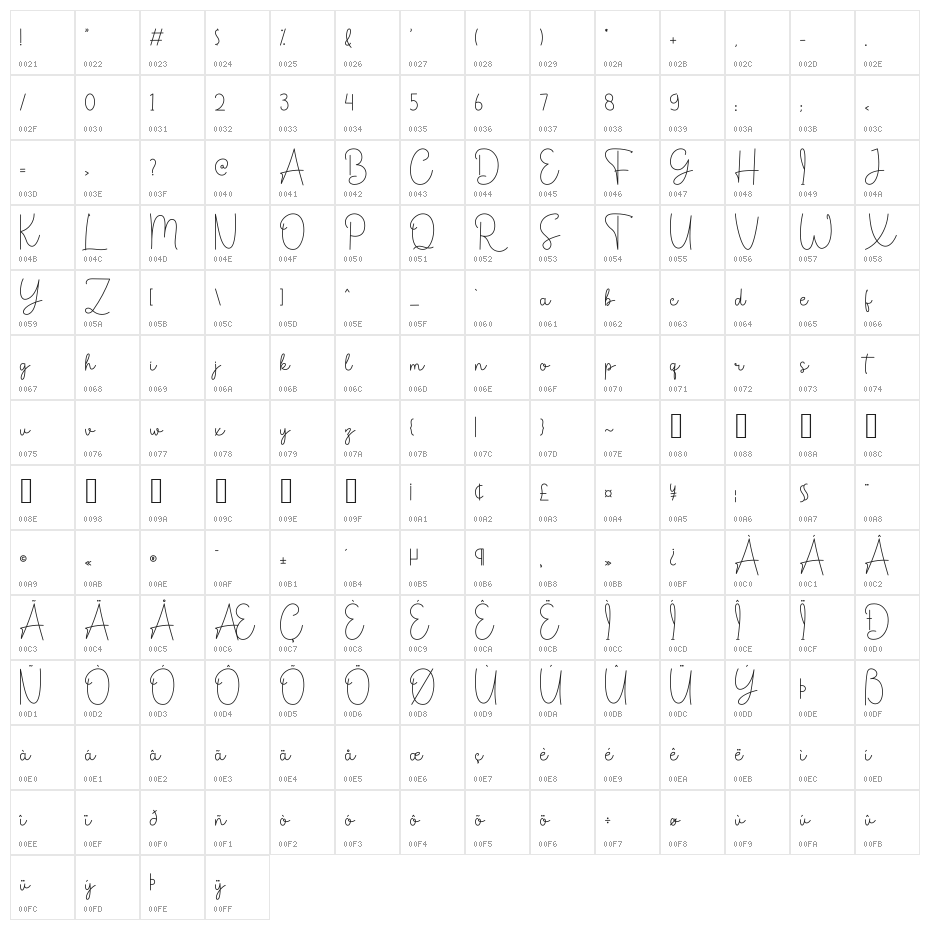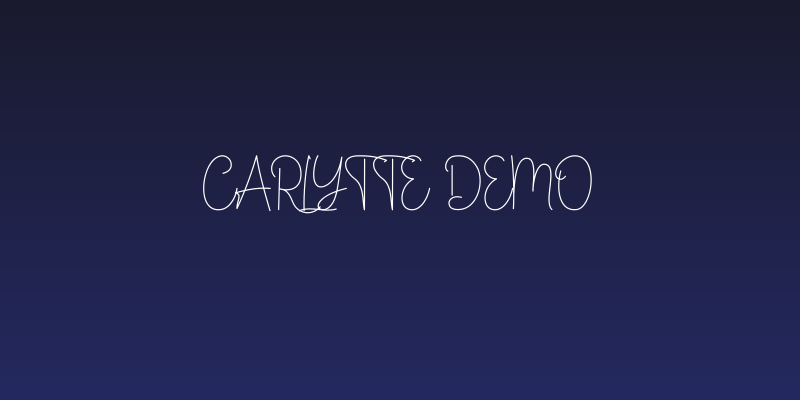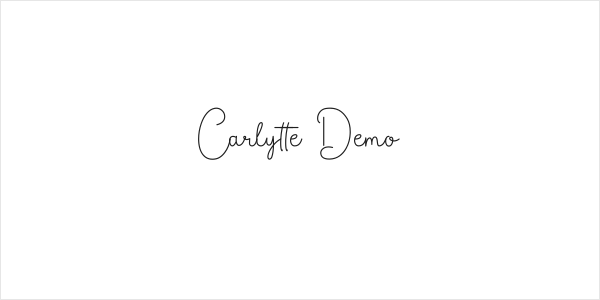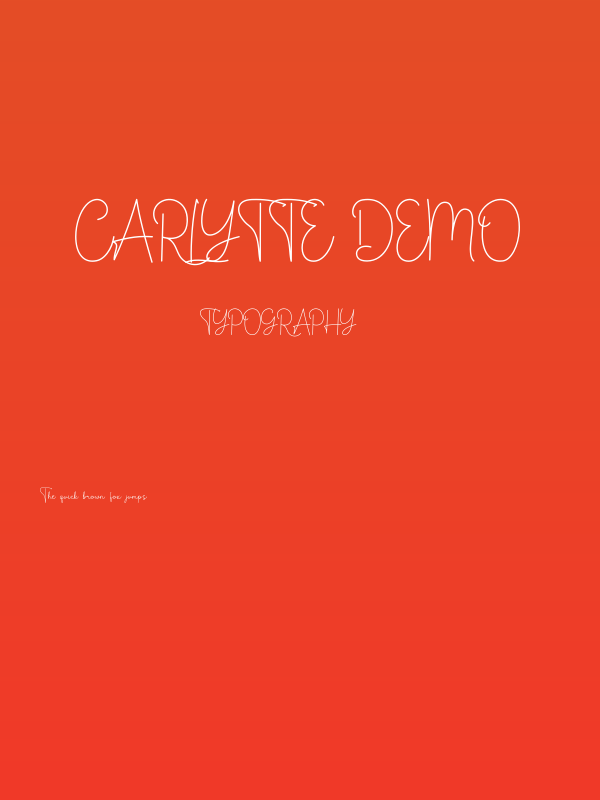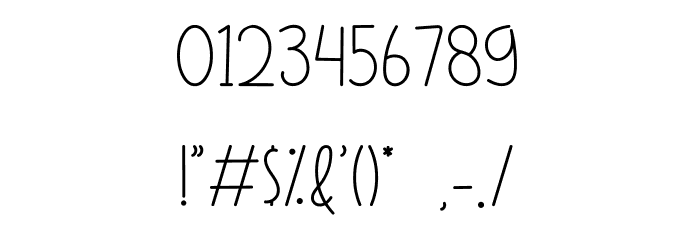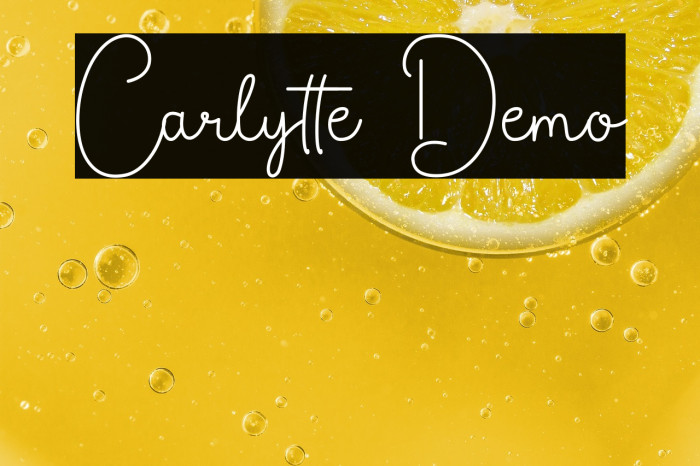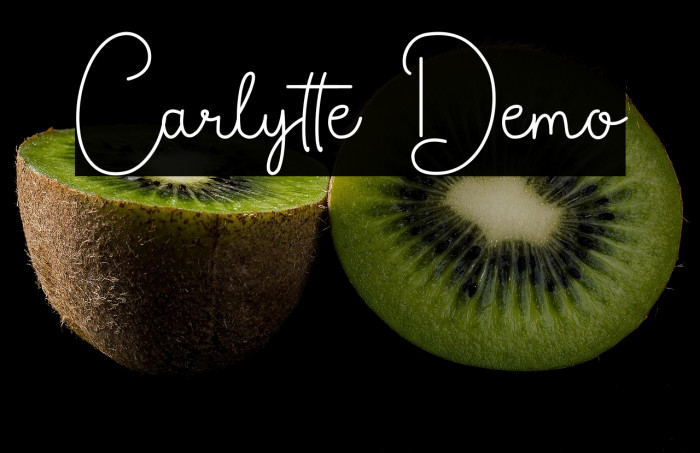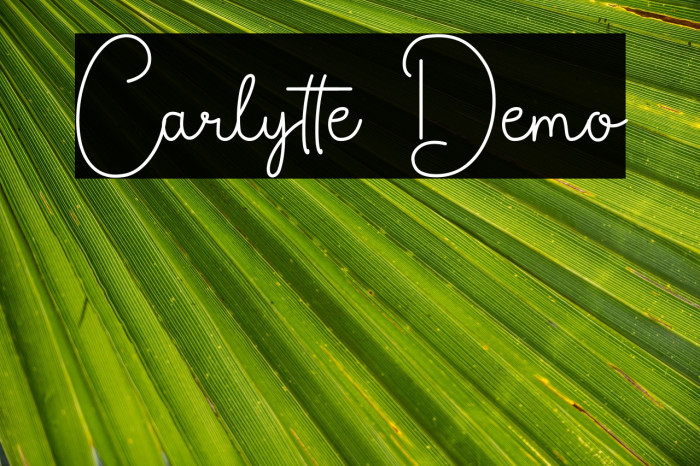
Carlytte Demo Font
Carlytte Demo Description
This font features a playful and elegant handwritten style with a modern twist. The uppercase letters are tall and slender, with a whimsical flair that adds a touch of sophistication. The lowercase letters maintain a consistent flow, enhancing readability while preserving the font's unique character. Numbers are clear and distinct, matching the overall aesthetic. Special characters are thoughtfully designed, ensuring they blend seamlessly with the rest of the typeface. The font's thin strokes and delicate curves make it ideal for projects that require a personal, yet polished touch.
| Proposed Projects | Ideal for wedding invitations, greeting cards, personal branding, and social media graphics. |